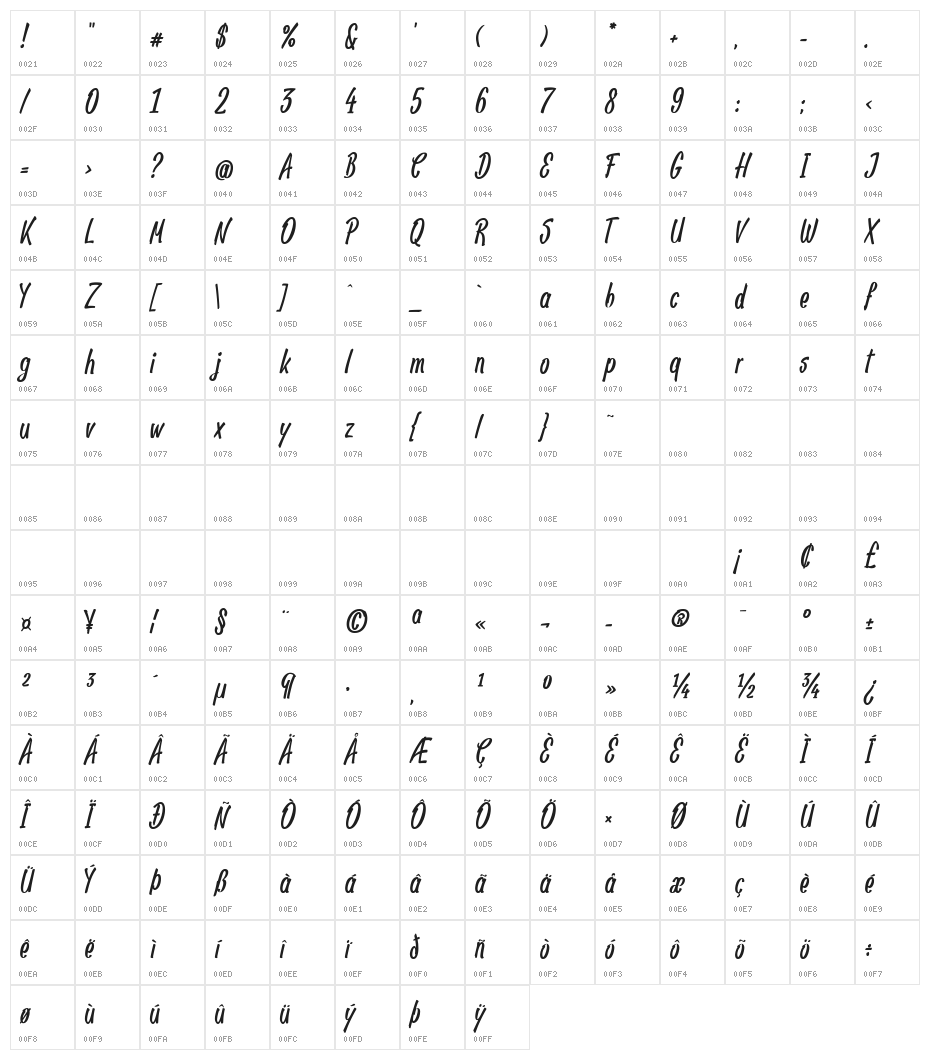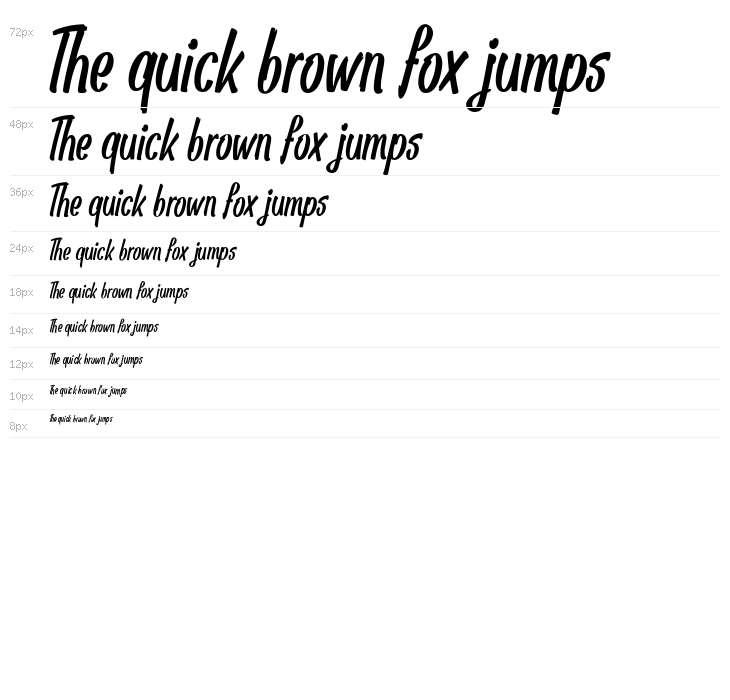
Pan Pizza Font
Pan Pizza Description
This font features a dynamic and energetic script style, characterized by its fluid and connected letterforms. The strokes are bold and slightly slanted, giving it a sense of movement and flair. The uppercase letters are tall and commanding, while the lowercase letters maintain a consistent flow, enhancing readability. Numbers and special characters are crafted with the same lively spirit, making them stand out. The overall appearance is both playful and sophisticated, suitable for a variety of creative applications.
| Proposed Projects | Ideal for branding, packaging, invitations, and posters where a lively and engaging script is desired. |